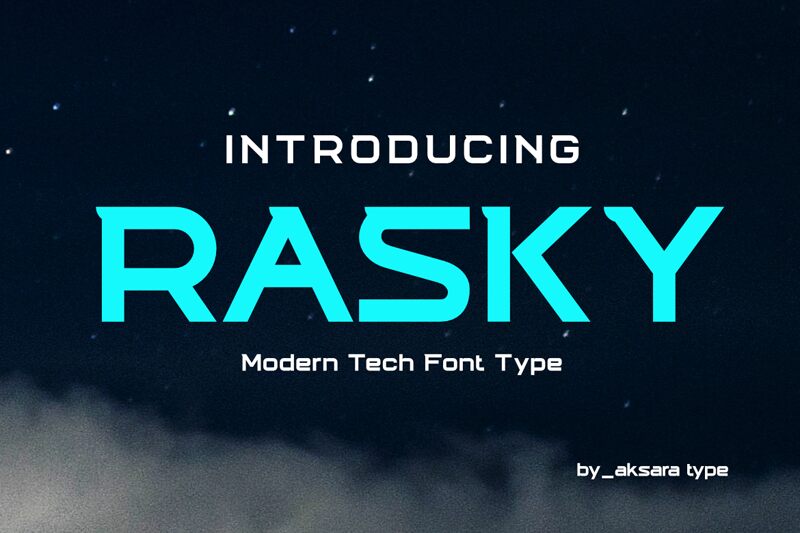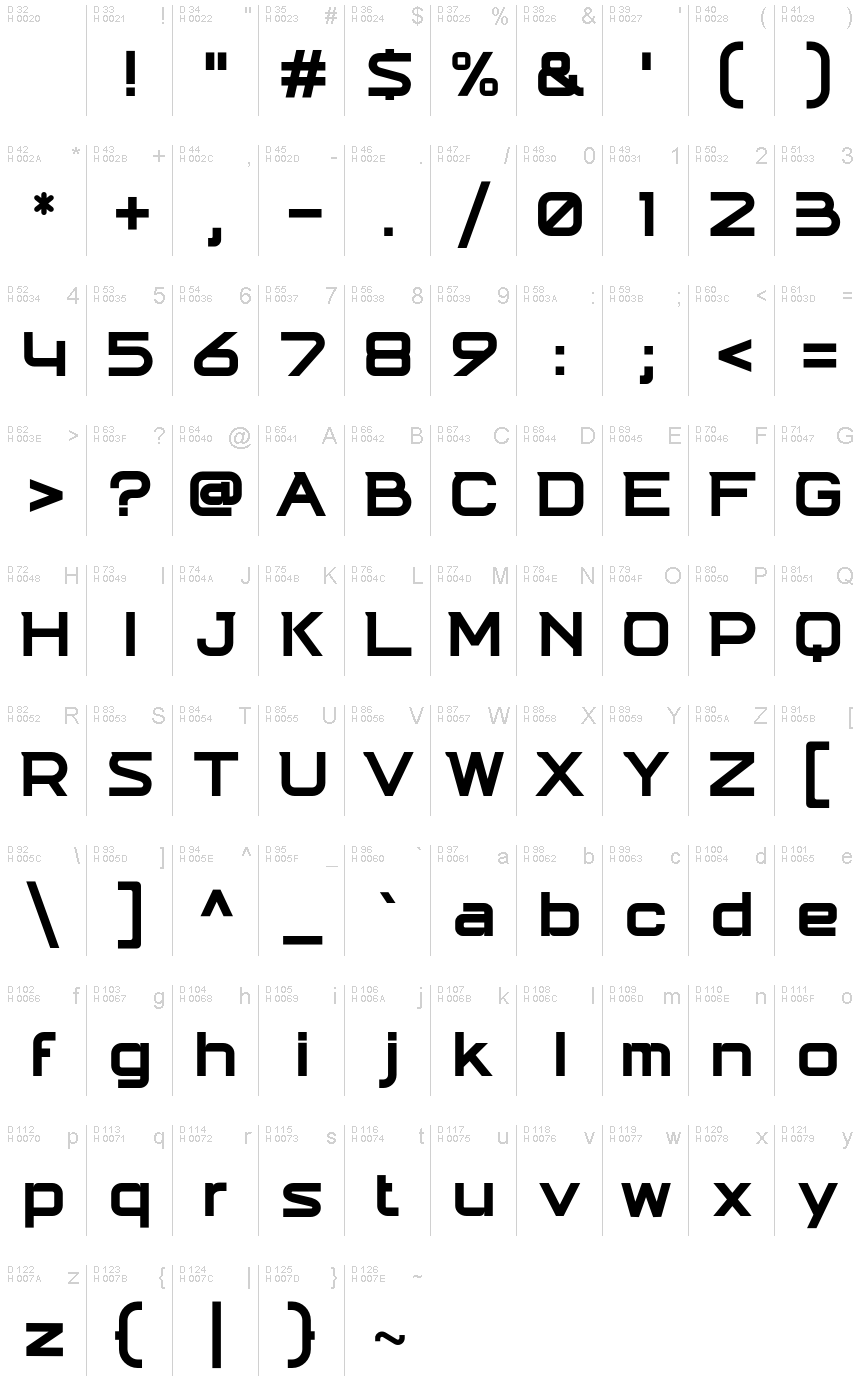
Rasky
Rasky, a creation by Aksara Type, is a bold foray into the realm of techno display fonts with an undeniably modern twist. Its expanded characters stretch across the canvas, commanding attention with their robust and assertive presence. The font's sleek lines and sharp edges evoke a futuristic aesthetic that seems to pull the reader into a progressive digital age.
This font shines in contexts where visual impact is paramount. From the headers of tech-focused websites to the titles on cutting-edge marketing materials or event posters, Rasky offers designers a typeface that is both stylish and practical for conveying energy and innovation.